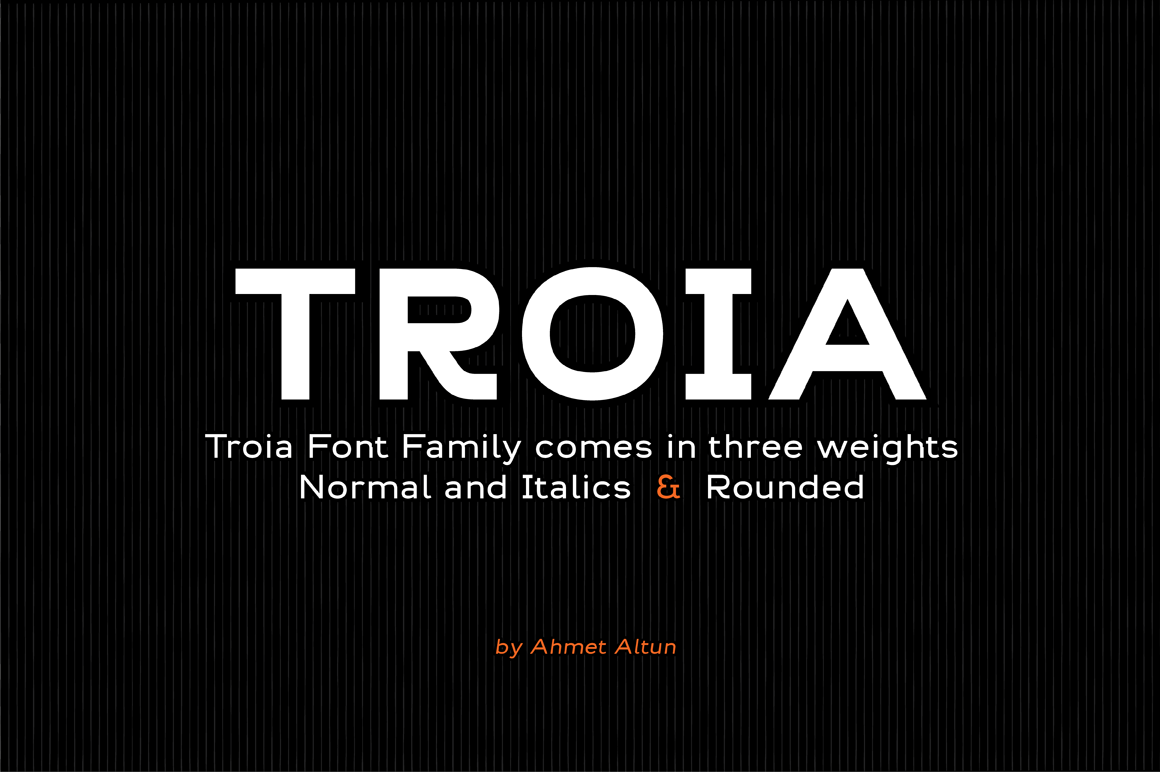
Troia Font Family
Troia Font Family comes in three weights; normal and italic. In addition, with rounded corners, each weight has its own smoother version. Thanks to its large letters and added spaces between the letters, this font can be used to get perfect results and create great works such as web typography, banners, logos, texts, t-shirts and printings, and also presentations. Troia’s eye-pleasing and nice-looking style makes writing much more pleasant.